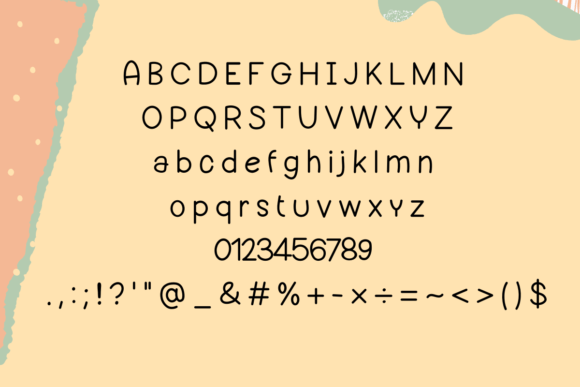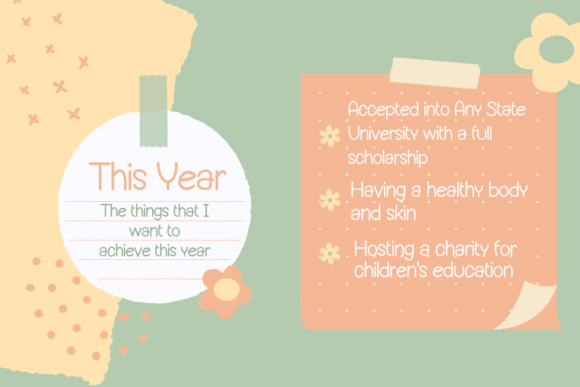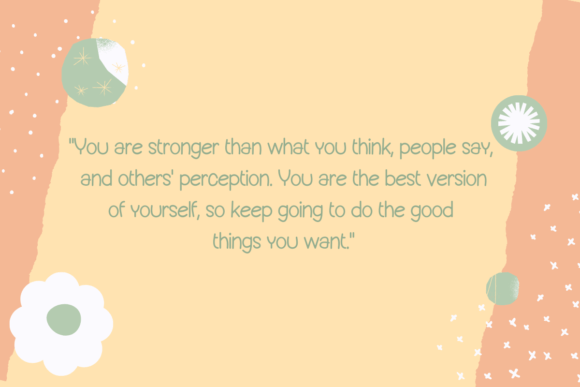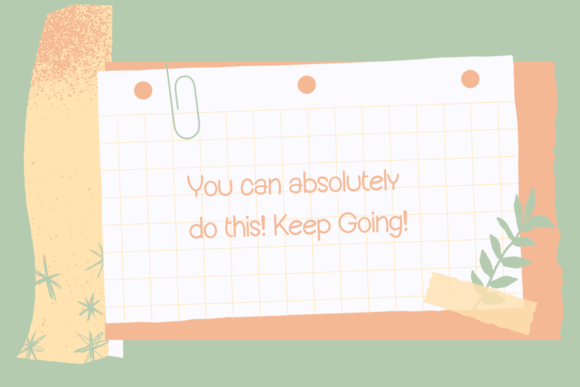
Introduction to Protractor Font
Do you remember that moment when you stumbled upon the perfect font to bring your creative project to life? For designers, this is a treasure hunt that never ends, and we’re excited to share our latest discovery – the Protractor Font.
As a free download, this high-quality handwritten font is perfect for taking notes, writing a diary, or making those special greeting cards. However, its versatility extends far beyond these traditional uses, making it an excellent design resource for a wide range of creative projects. Whether you’re working on banners, content, mugs, cards, shirts, stationery, or social media posts, the Protractor Font is sure to add that extra touch of personality and charm.
With its transparent background, you can easily incorporate this font into your designs without worrying about any unwanted distractions. As a valuable addition to your design arsenal, the Protractor Font is an absolute must-have for any creative project.
Key Features of Protractor Font
- High-quality, professional font suitable for various creative projects
- Transparent background, allowing for seamless integration with any design
- Unique characteristics: Protractor Font features a unique, geometric design with clean lines and precise shapes
- Perfect for designers and artists seeking a high-quality design resource for their projects
Honest Review: Protractor Font
I recently came across the Protractor Font, and I have to say, it’s been a game-changer for my creative projects. As a designer, I’m always on the lookout for high-quality design resources that can help me bring my ideas to life.
The Protractor Font is a free download, which is a major plus in my book. I love that it’s available to everyone, and it’s not locked behind a paywall. The font itself is incredibly versatile, with a range of styles that can be used for everything from logos to body text.
- Transparent background makes it easy to work with
- Limited font sizes and weights may not be suitable for all projects
Overall, I’m really impressed with the Protractor Font. It’s a great addition to any designer’s toolkit, and I’ve already started using it on a few of my current projects. If you’re looking for a high-quality font that’s easy to use, I’d definitely recommend checking it out.
Protractor Font
The Protractor Font is a versatile and high-quality design resource perfect for any creative project. It’s available for free download and features a transparent background, making it easy to customize and use in a variety of applications.
Tips for Getting the Most Out of the Protractor Font
To get the most out of the Protractor Font, be sure to:
- Experiment with different font sizes and styles to find the look that works best for your project.
- Use the font in combination with other design elements to create a cohesive and visually appealing design.
- Take advantage of the font’s transparent background to create custom designs and graphics.
The Protractor Font is perfect for a variety of creative projects, including:
- Graphic design and branding
- Print design and publishing
Alternatives to Protractor Font
Open Sans Font is a popular, high-quality font that is widely used in various creative projects. It’s available for free download and comes in multiple weights and styles. This font is ideal for body text and headings in digital designs. Open Sans is a great alternative to Protractor Font as it offers a more modern and sleek look.
Lato Font is a modern sans-serif font that is perfect for creative projects requiring a clean and minimalistic design. It’s a free download and can be used for both digital and print designs. Lato is a great choice when you need a font with a transparent background and a high level of readability. Compared to Protractor Font, Lato is more versatile and suitable for a wider range of design applications.
Can I use the Protractor Font with a transparent background?
Yes, the Protractor Font supports transparent backgrounds, making it perfect for designing graphics with a see-through effect. To use the font with a transparent background, simply select the font in your design software and adjust the background settings to allow transparency. Note that some design software may have specific requirements or limitations for working with transparent fonts, so be sure to check your software’s documentation for more information.